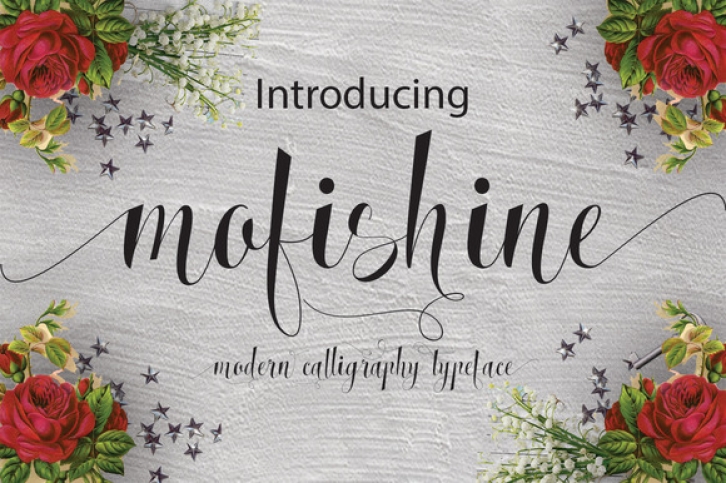
Mofishine Script is a calligraphy style handmade script.
It’s a fresh and modern script font that is great for creating elegant and decorative items. Mofishine Script comes with 615 glyphs and features:
- PUA Encoding
- Stylistic Sets
- Contextual Characters